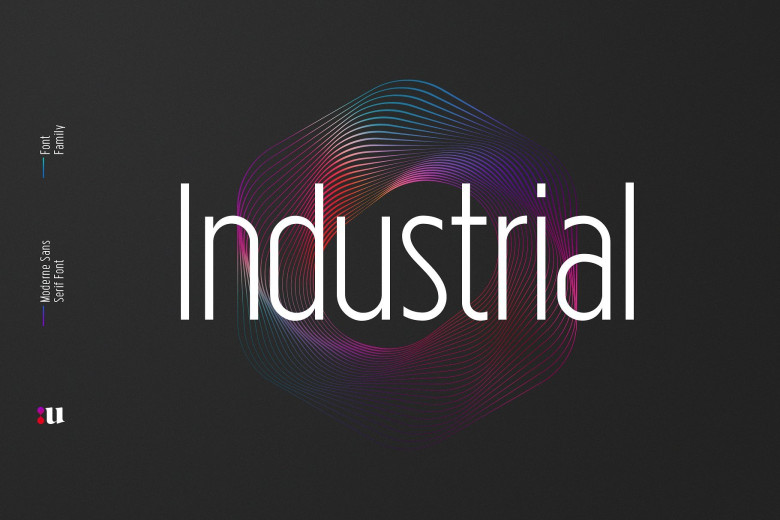
Industrial Sans Font Family
If you are looking for a modern and easy-to-use font, it’s here! This is a minimalist creative sans serif font pack that looks stunning in every context. Introducing Industrial Sans Typeface. Industrial is a visual contemporary sans serif typeface composed of three weights plus their matching obliques. The “Industrial design” creates and develops concepts and specifications that optimize the function, value and appearance of products. Indeed, this is reflected in the concept behind each glyph of our font family which geometry has required a particular attention for the purpose to preserve optical exactness, along with proportions continuity. The whole design of this typeface is in fact ruled by versatility and legibility and makes it functional for any text in small and large sizes.